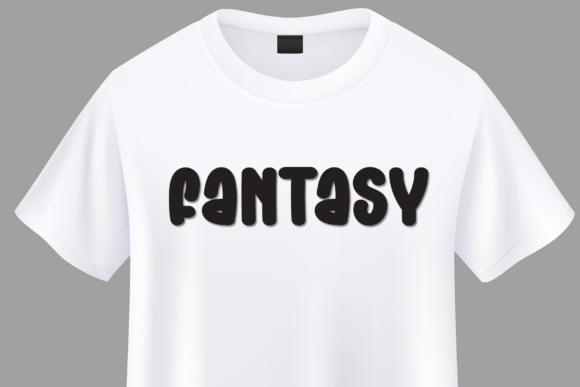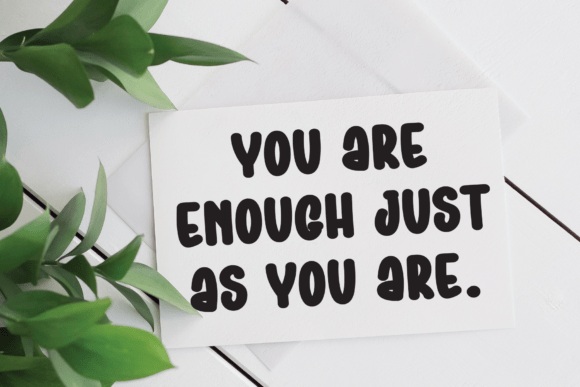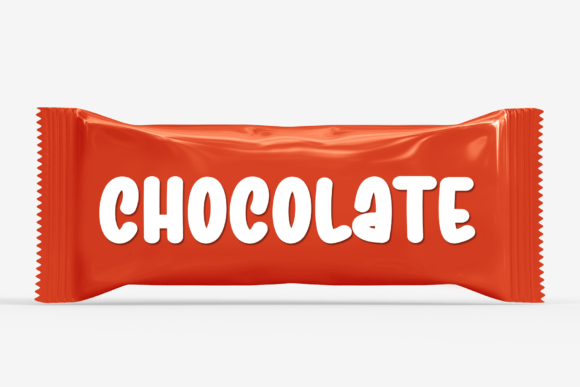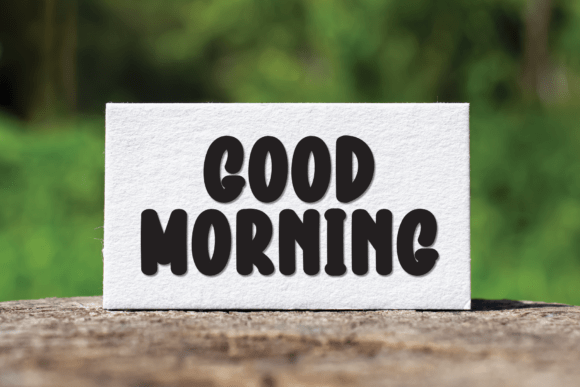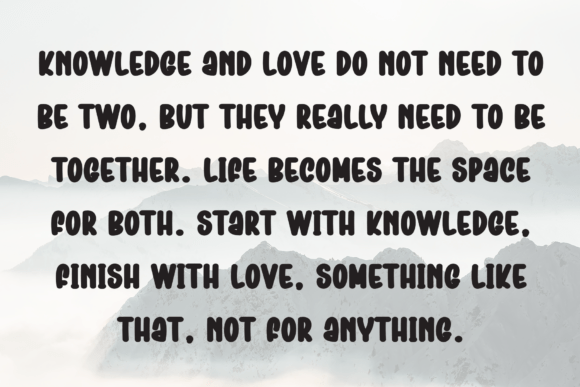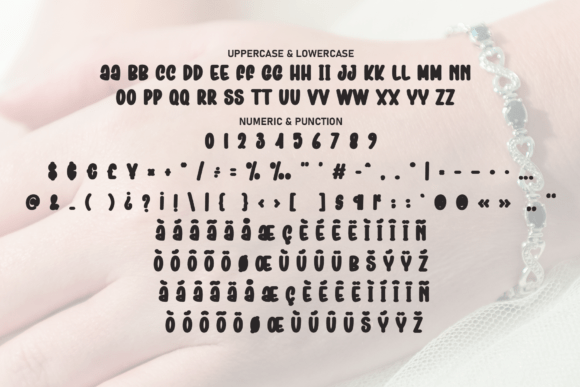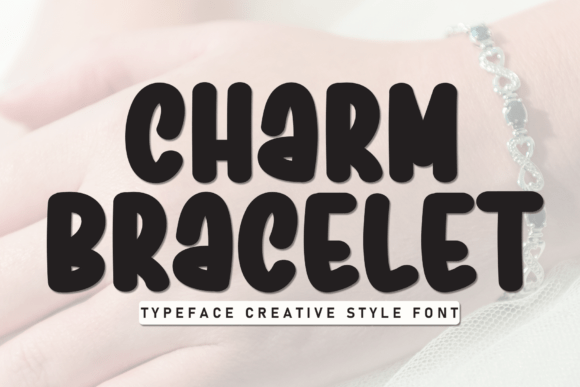
Introducing Charm Bracelet Font: The Perfect Blend of Clarity and Relaxed Elegance
In the world of typography, finding the right font can make all the difference in the success of a design project. Whether you’re a designer, craftier, or simply a DIY enthusiast, the font you choose can elevate or detract from your message. That’s why we’re excited to introduce the Charm Bracelet Font, a neat and casual display font that blends clarity with a relaxed, approachable vibe.
Clean Lines, Friendly Letterforms
The Charm Bracelet Font is characterized by its clean lines and friendly letterforms, making it perfect for a wide range of design applications. From headlines and posters to packaging and branding, this font is designed to bring a modern yet laid-back feel to your projects. Its balanced structure and playful energy ensure that it adds personality to any design without overwhelming the message.
What Makes Charm Bracelet Font Stand Out?
• Readability: The Charm Bracelet Font is designed to be highly readable, making it perfect for designs that require a clear and concise message.
• Style: With its clean lines and friendly letterforms, this font adds a touch of elegance and sophistication to any design.
• Versatility: The Charm Bracelet Font is suitable for a wide range of design applications, from digital projects to print materials.
• Personality: This font brings a playful energy to any design, making it perfect for brands that want to convey a sense of fun and approachability.
The Charm Bracelet Font is an excellent choice for designers and crafters who want to add a personal touch to their projects. Whether you’re creating a logo, branding materials, or simply a fun DIY project, this font is sure to impress. Its unique blend of clarity and relaxed elegance makes it perfect for:
• Logos and branding: Use the Charm Bracelet Font to create a memorable and stylish logo that reflects your brand’s personality.
• Posters and flyers: Add a touch of elegance and sophistication to your posters and flyers with this beautiful font.
• Packaging: Use the Charm Bracelet Font to create eye-catching packaging that stands out on store shelves.
• DIY projects: Add a personal touch to your DIY projects, such as handmade cards, gift tags, and more.
Why Choose Charm Bracelet Font?
With so many fonts to choose from, why should you choose the Charm Bracelet Font? Here are just a few reasons:
• Unique style: The Charm Bracelet Font offers a unique blend of clarity and relaxed elegance that sets it apart from other fonts.
• Highly readable: This font is designed to be highly readable, making it perfect for designs that require a clear and concise message.
• Versatile: The Charm Bracelet Font is suitable for a wide range of design applications, from digital projects to print materials.
In conclusion, the Charm Bracelet Font is a beautiful and versatile font that is perfect for designers and crafters who want to add a personal touch to their projects. With its clean lines, friendly letterforms, and playful energy, this font is sure to elevate any design. Whether you’re creating a logo, branding materials, or simply a fun DIY project, the Charm Bracelet Font is an excellent choice. So why wait? Download the Charm Bracelet Font today and start creating stunning designs that reflect your unique style!